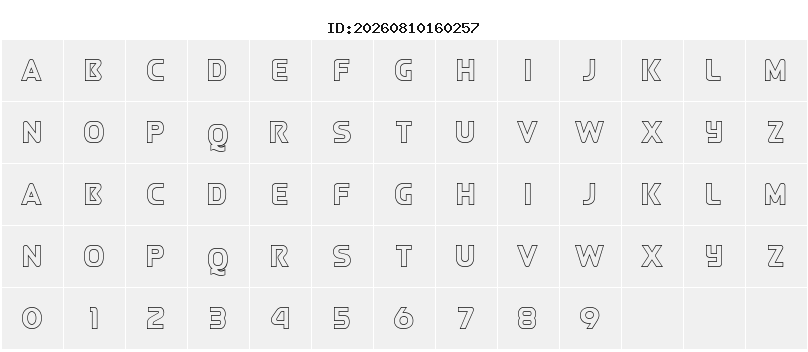
Queen of Camelot Outlines Preview
• Font Name: Queen of Camelot Outlines
• Font Style: Outlines
• Full Font Name: Queen of Camelot Outlines
• Version: Version 3.00 February 19, 2016
About Queen of Camelot Outlines.otf
Queen of Camelot Outlines.otf is a modern, elegant sans-serif font designed for ultimate readability and visual harmony. Perfect for branding, headlines, web design, and print materials.